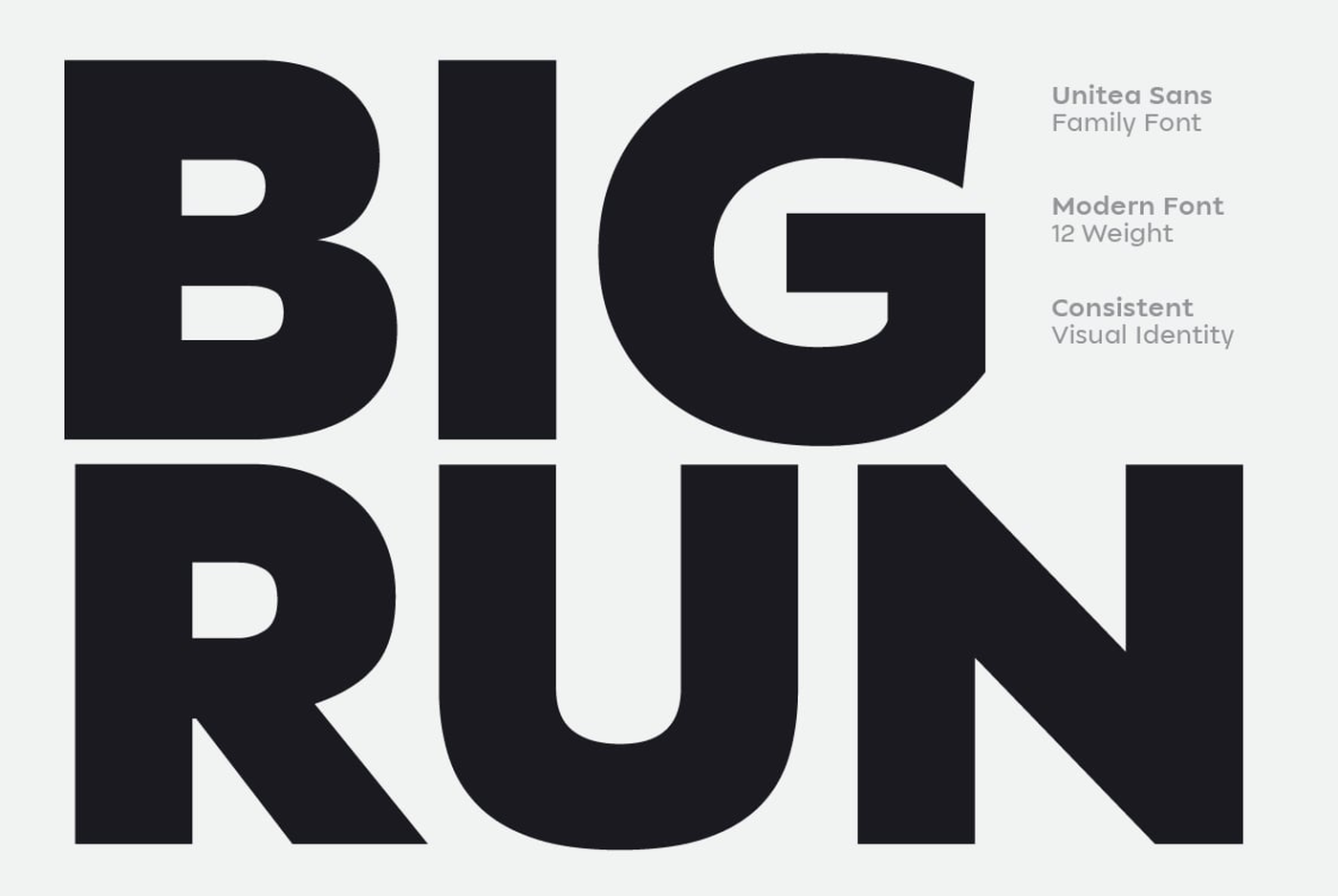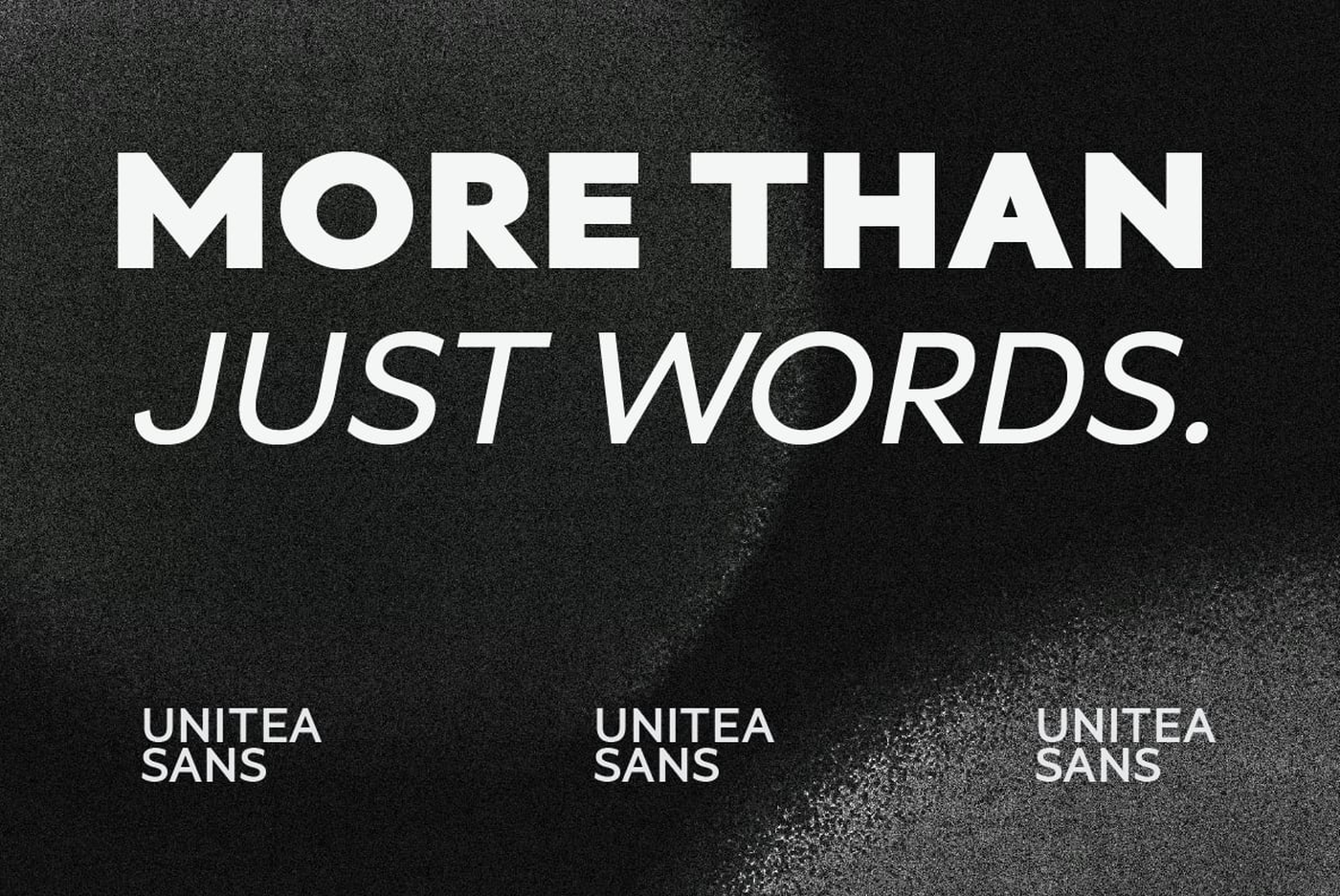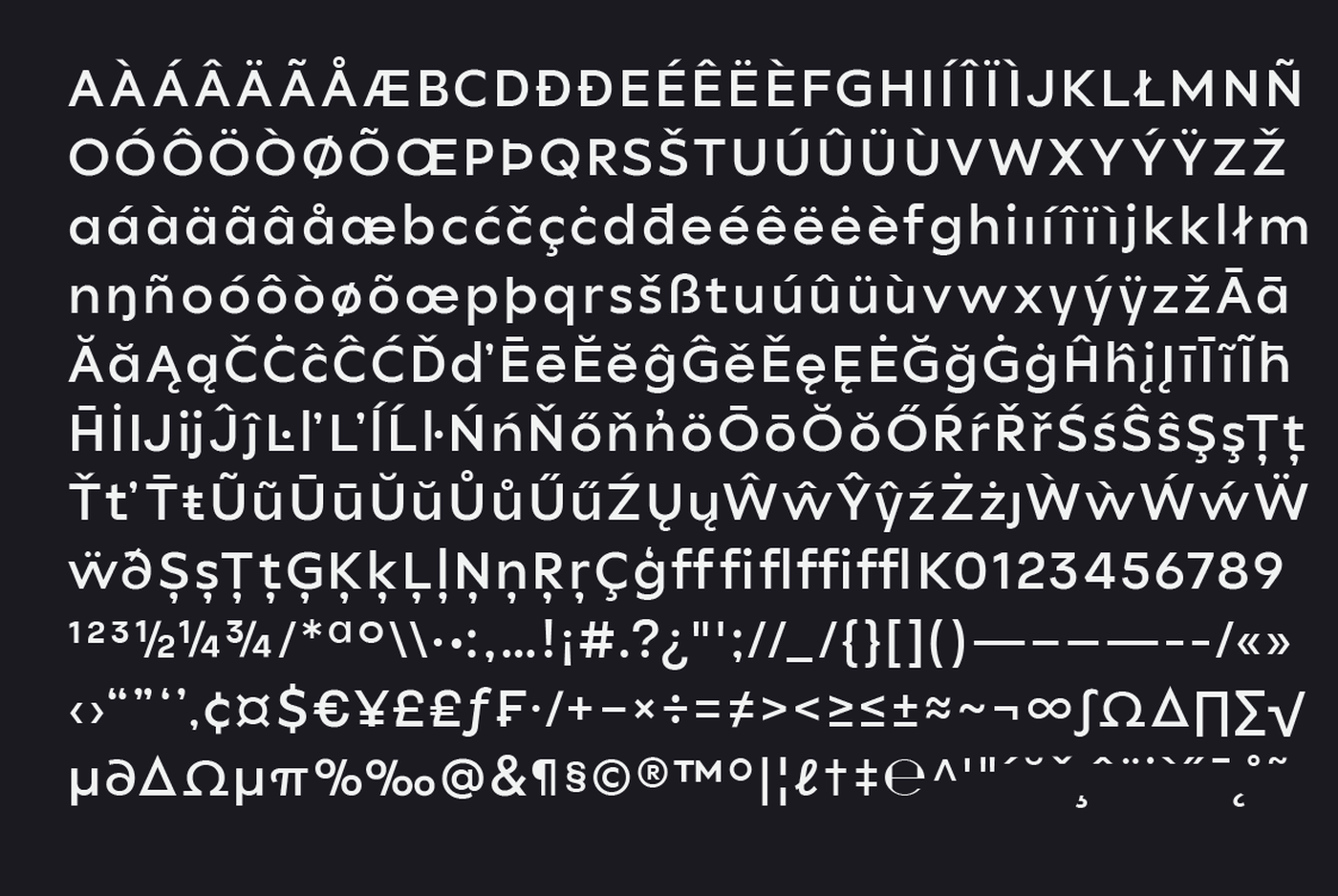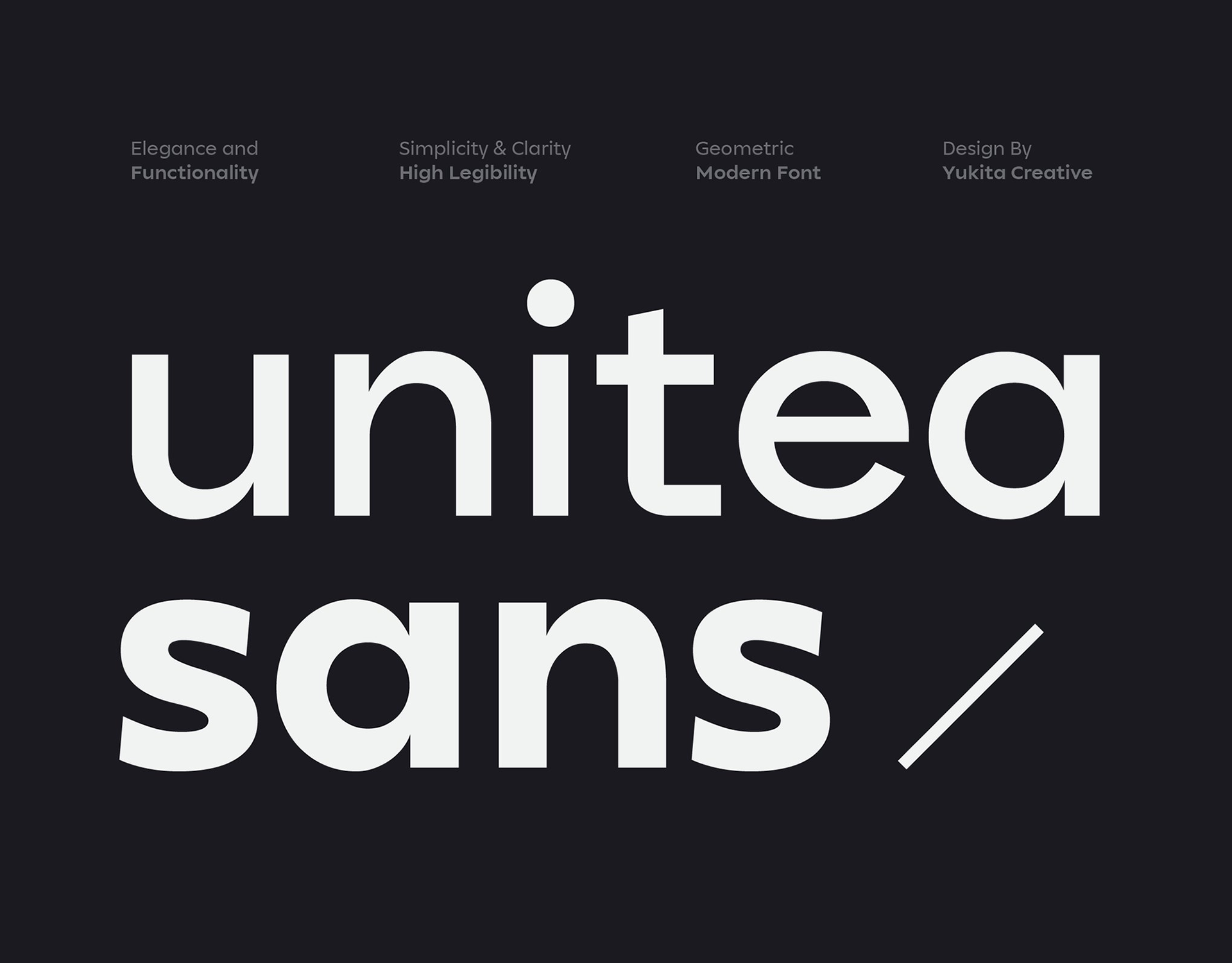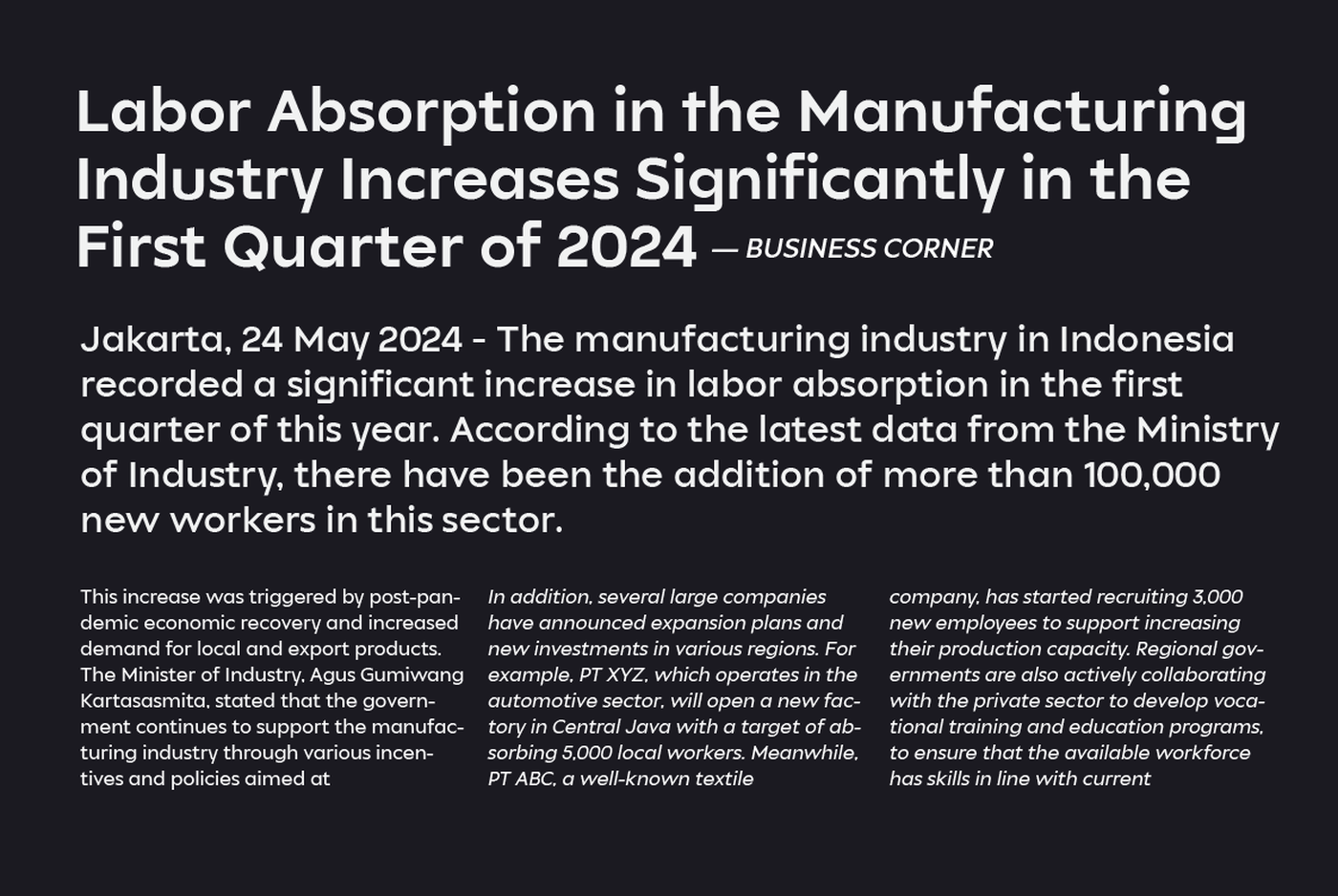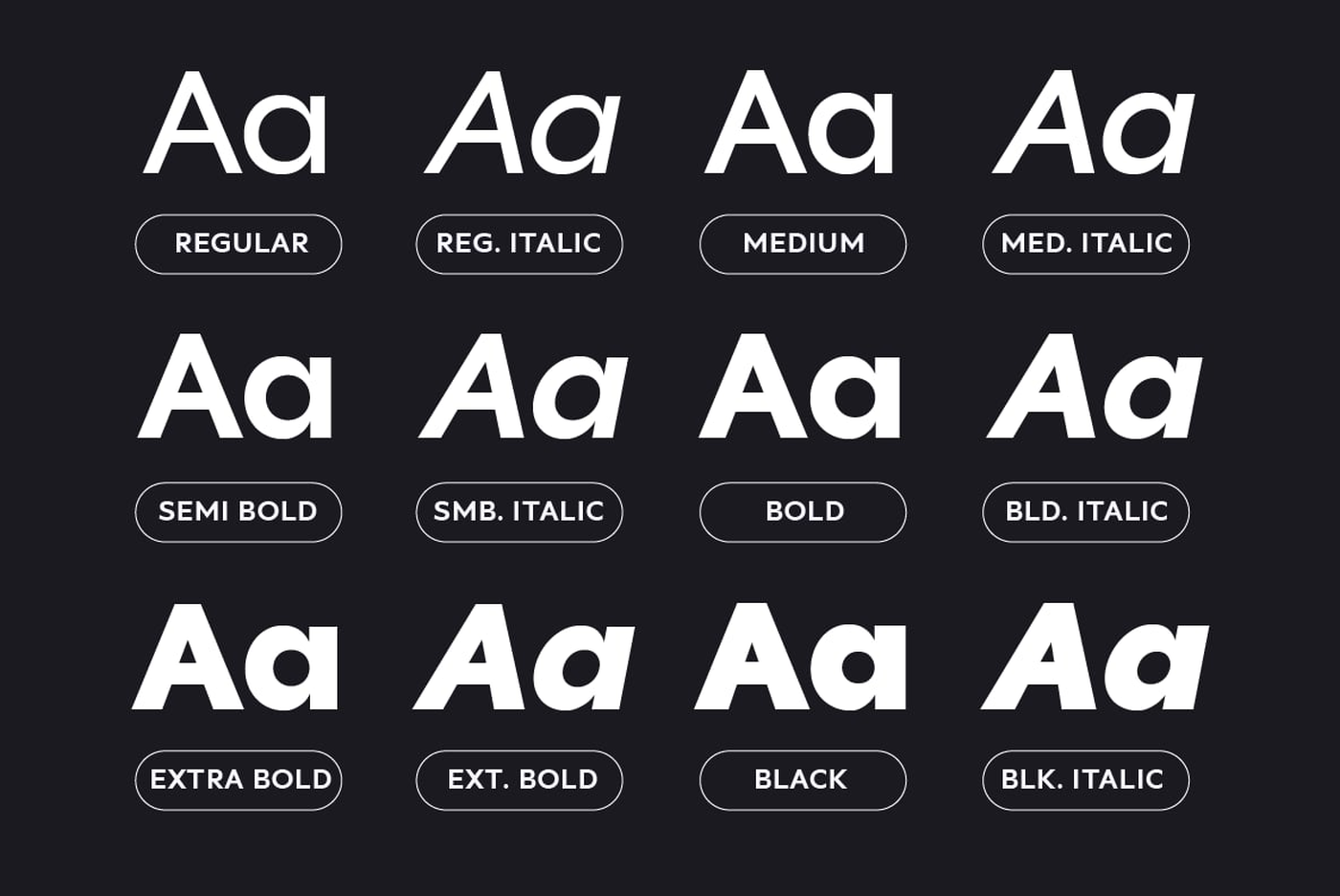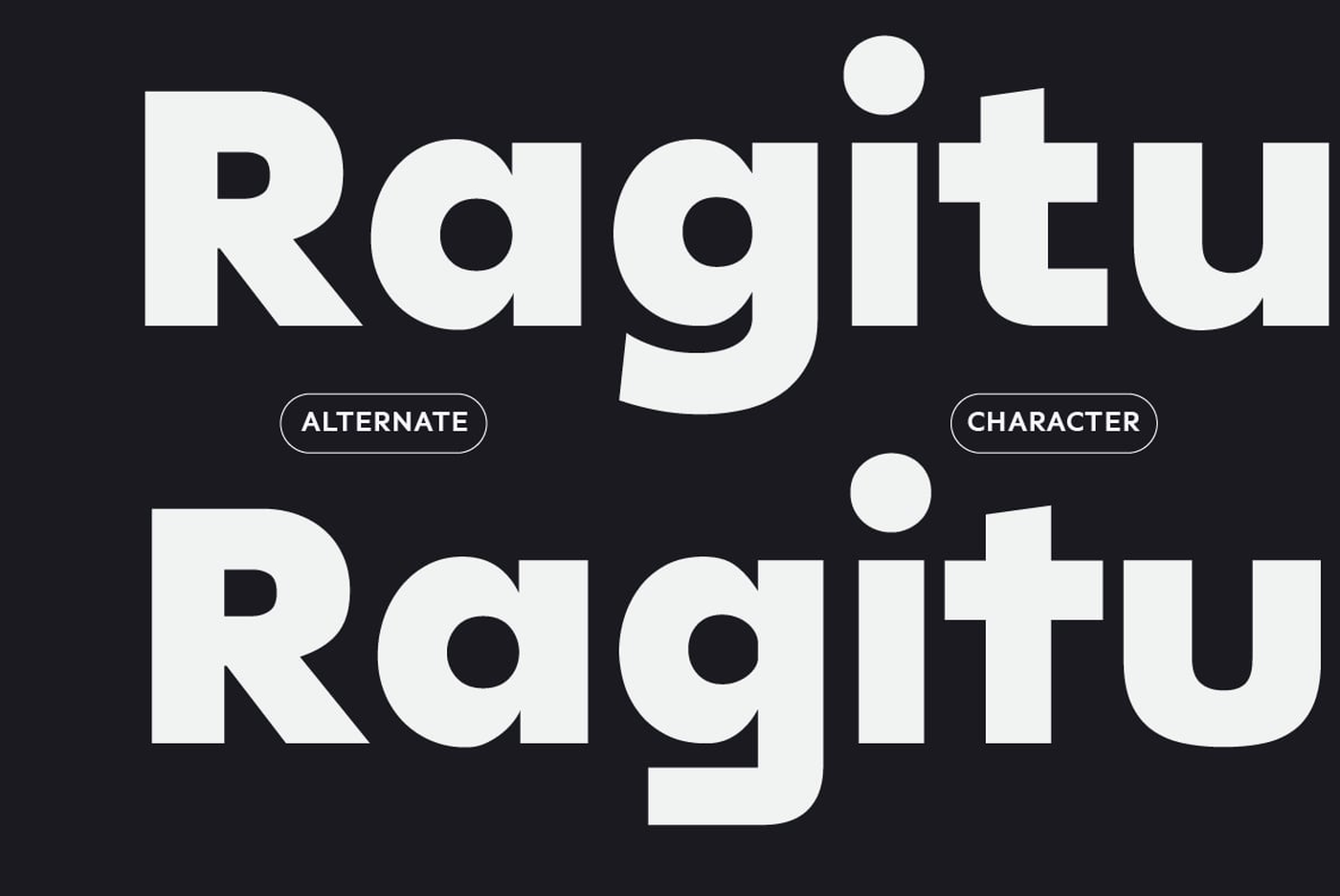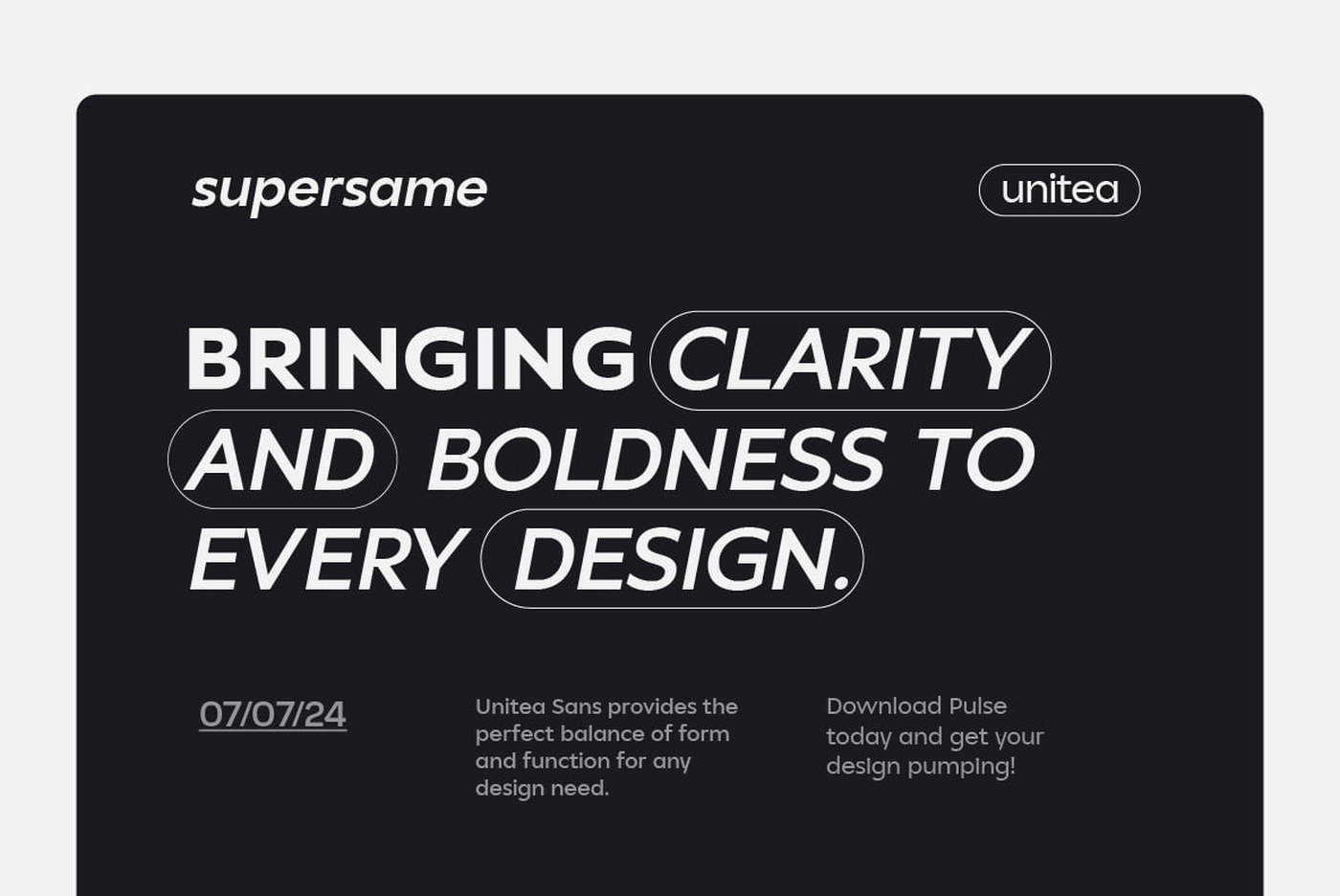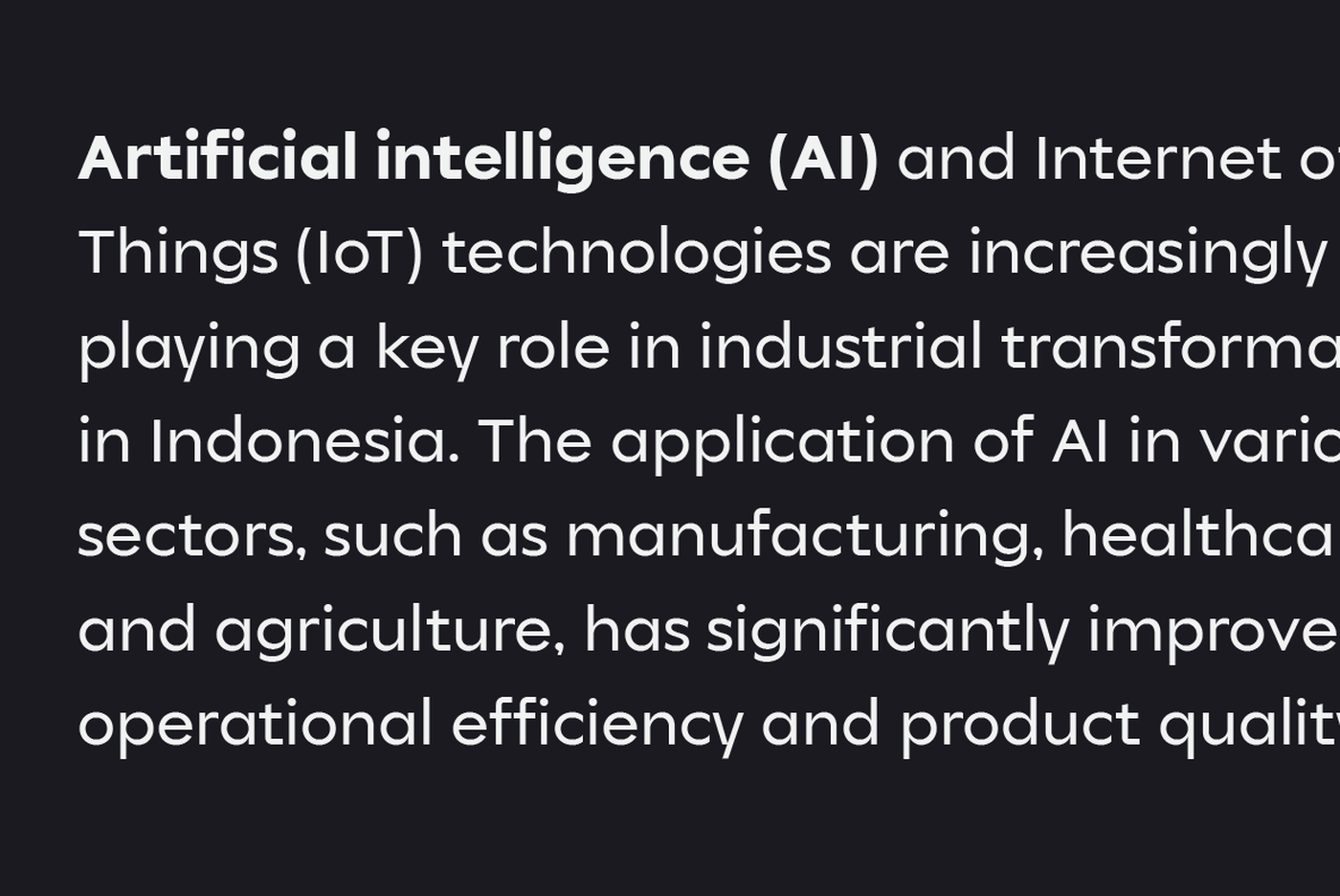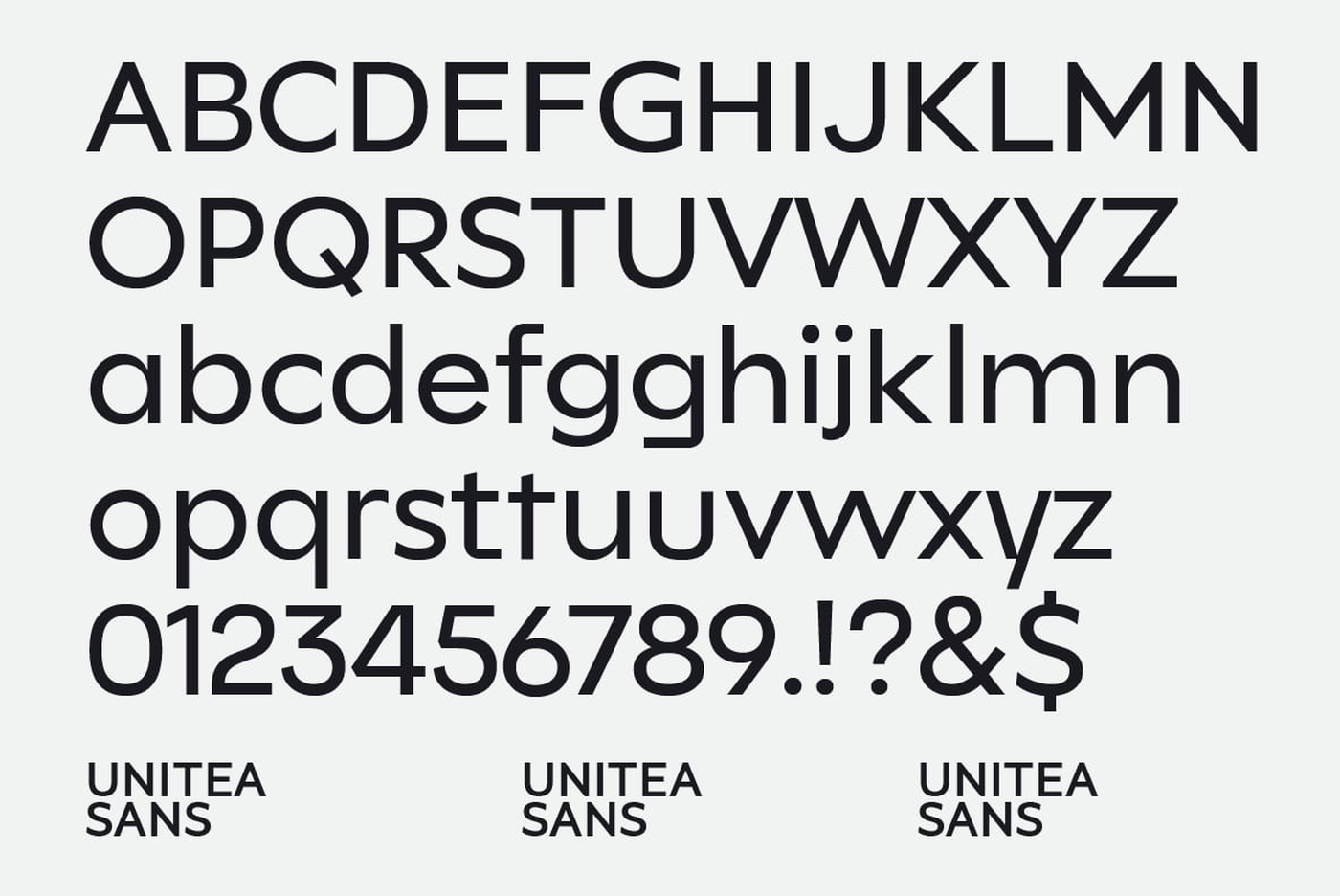
Unitea - Sans Serif Font Family
Unitea Sans is a modern geometric sans serif font family, expertly designed to provide high readability and versatility across various design projects. Featuring six distinct weights from Regular to Black, along with italic slants, this font family offers a complete typographic solution for digital and print media.